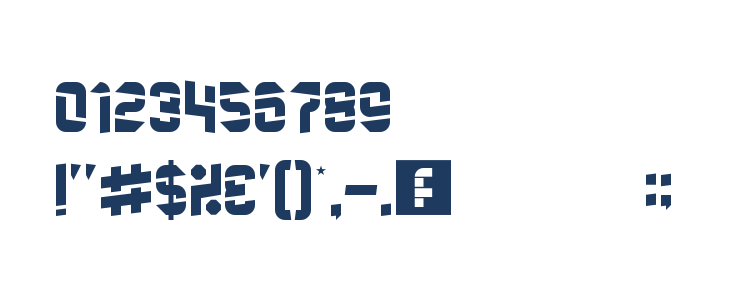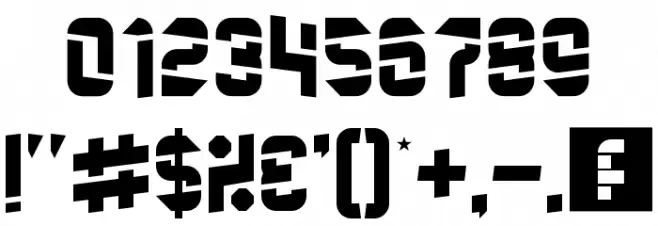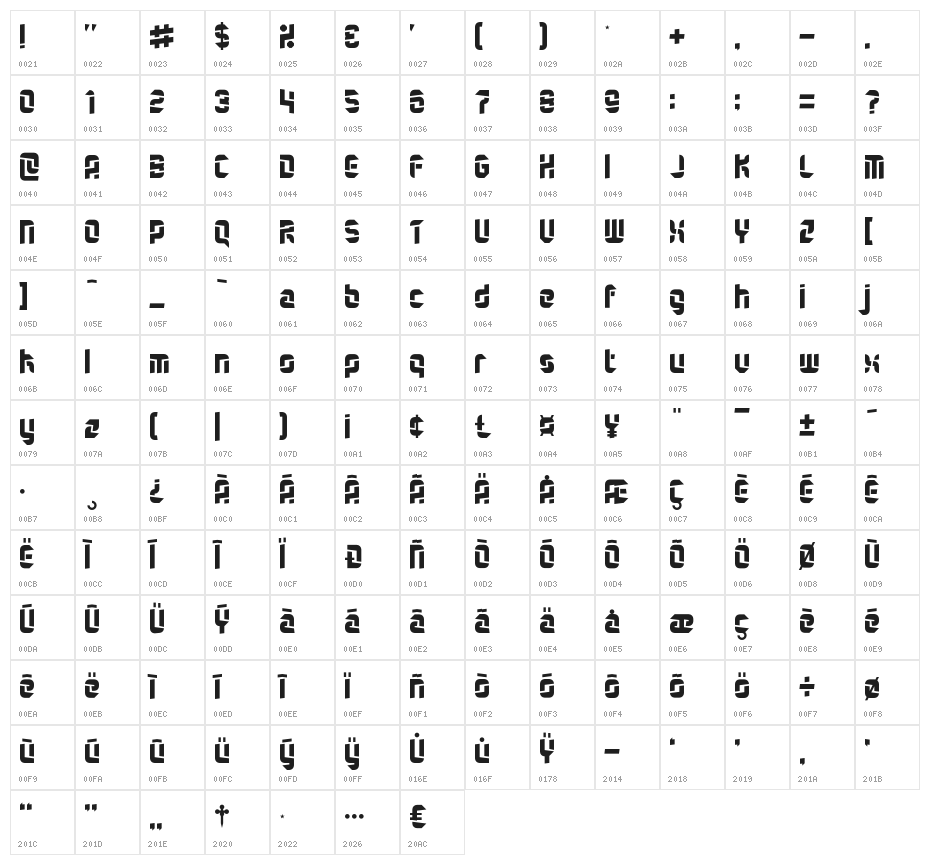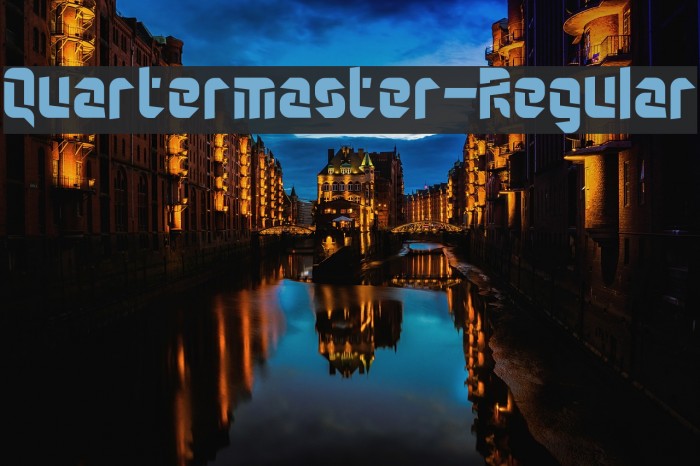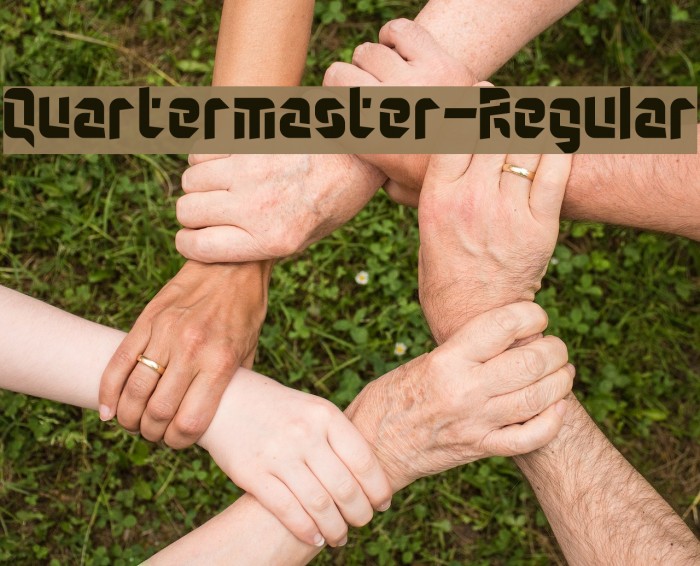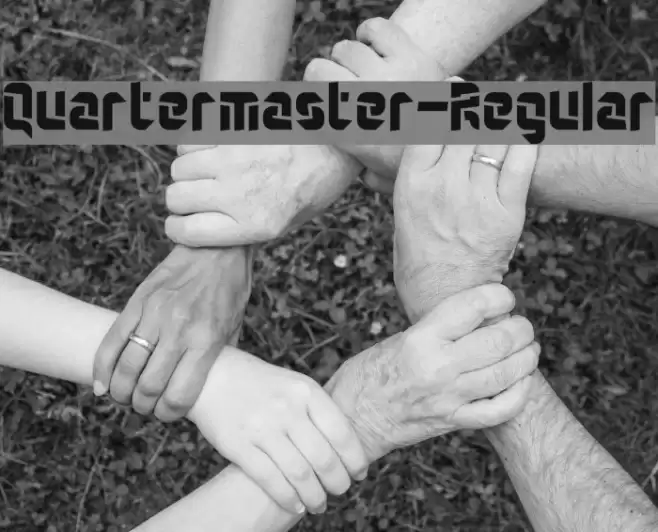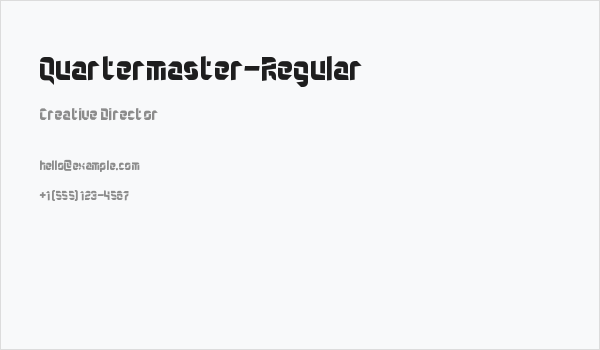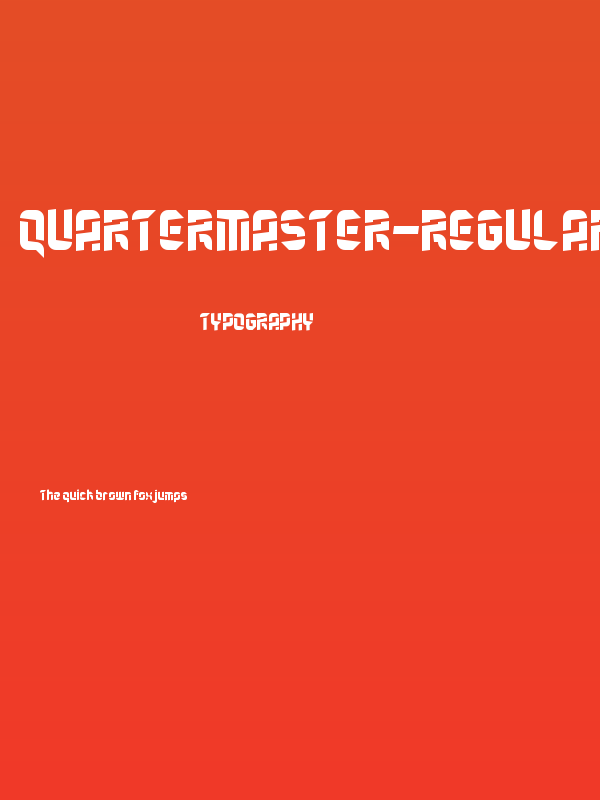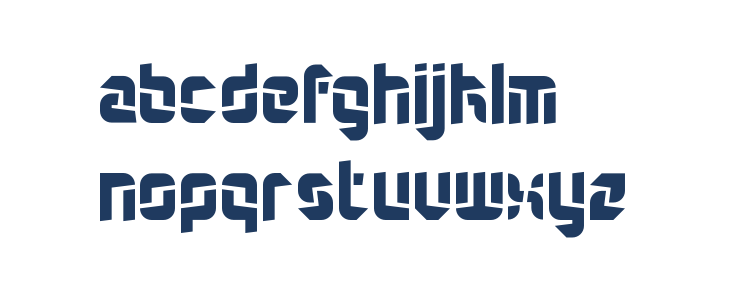
Quartermaster-Regular Font
Quartermaster-Regular Description
This font features a bold, geometric design with a futuristic and industrial feel. The characters are constructed with sharp angles and cut-out sections, creating a stencil-like appearance. The uppercase and lowercase letters maintain a consistent style, with a strong emphasis on horizontal and vertical lines. Numbers and special characters follow the same design principles, ensuring uniformity across the typeface. The font's unique style makes it highly suitable for projects that require a modern and edgy look.
| Proposed Projects | Ideal for branding, posters, video game graphics, and sci-fi themed projects. |